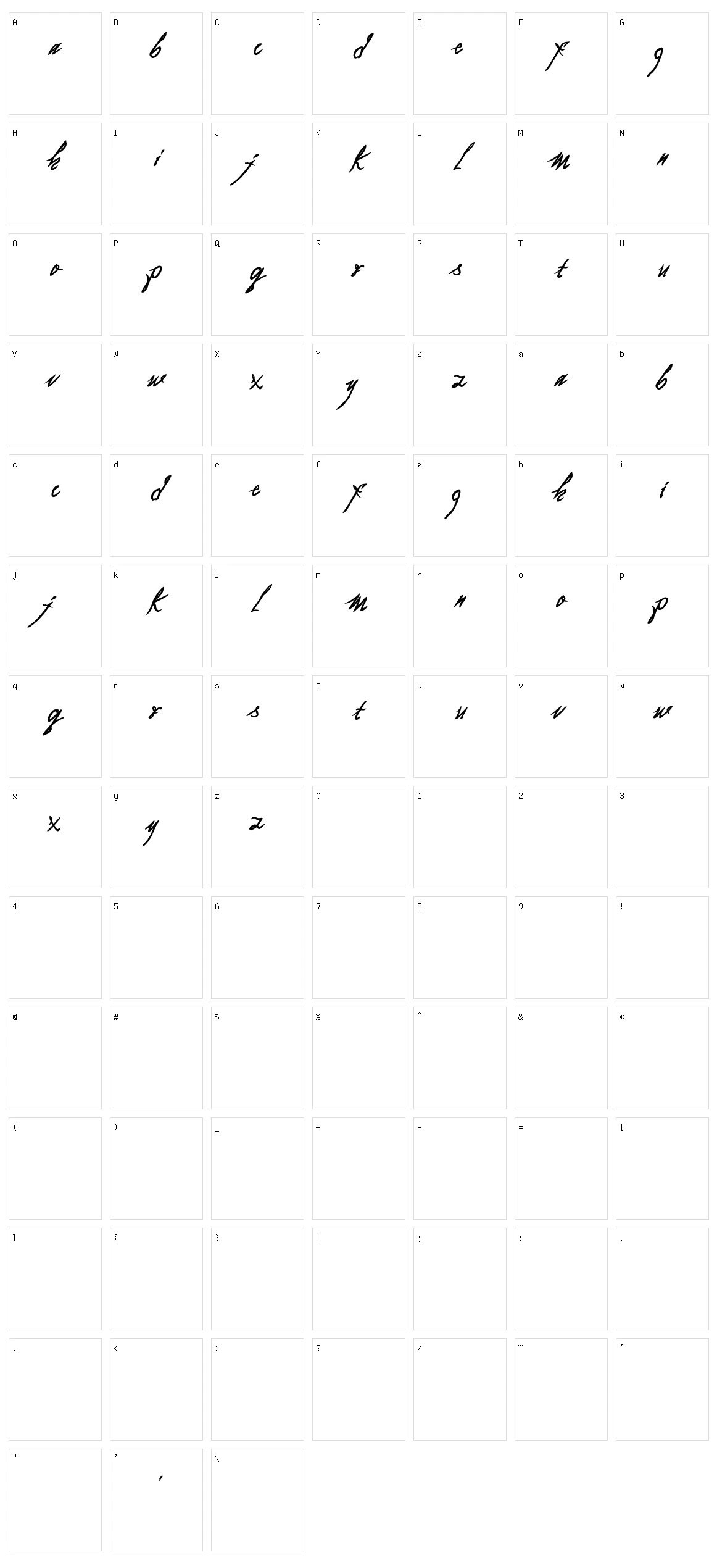
The free font As I Lay Dying is carefully designed by Moises Esqueda, showcasing a thoughtful balance of creativity and usability and falls under the Script font style. When you download the ZIP file, it contains only 10.36 KB of font files, making it lightweight and quick to download. Please review the license details below to understand permitted usage and distribution rights. If license information is not available, we recommend using this font for personal projects only or contacting the author directly for commercial usage permissions.